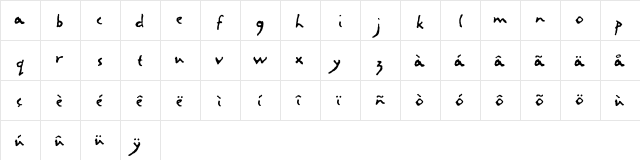
LettresEclatees Alternate
Design Context for LettresEclatees Typeface
LettresEclatees is a composed and adaptable typeface that performs quietly and consistently across a wide range of design contexts.